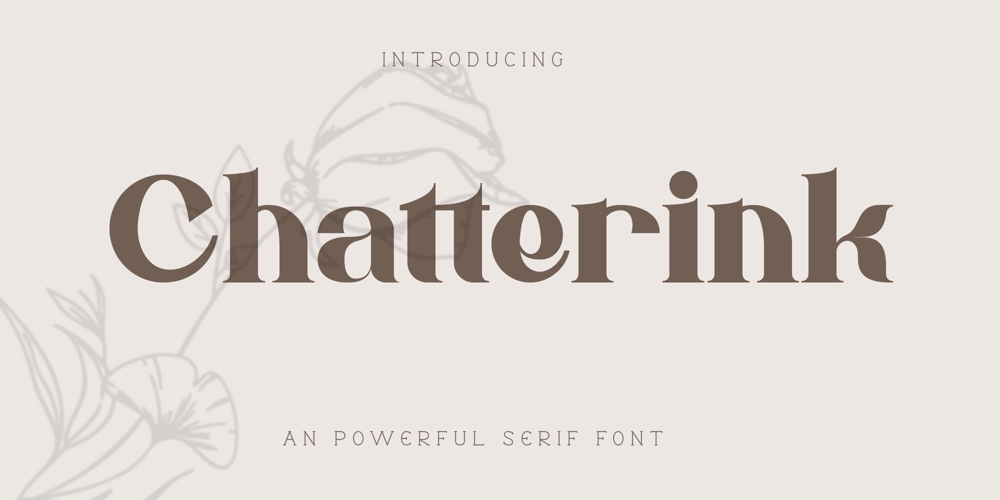
Chatterink Font Family was designed by Irfan Hidayat and published by Creative17studio. Chatterink contains 2 styles and family package options. Introducing,”Chatterink” a new serif font family that is bold, powerful and modern. Inspired by the shape of a flower petal, this font has its own characteristics.If you’re looking for a stylish font, then this font is for you. The combination of modern types with flower petals is a masterpiece for you.Available in 2 types, regular and italic.Feature :1. Full set of basic characters2. Numbers and punctuation marks3. Multilingual support4. Extra characters that are easy to accessAny questions?Just ask.Free updates